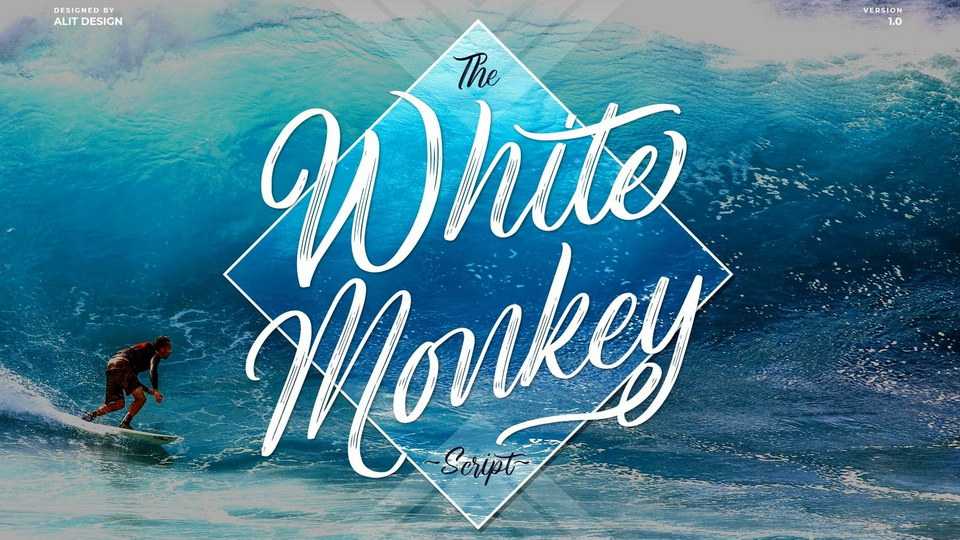
Download White Monkey font, a beautiful hand lettered typeface with a dynamic vibe. White Monkey is perfect for your design needs such as printed quotes, invitation cards, social media, product packaging, website and more.